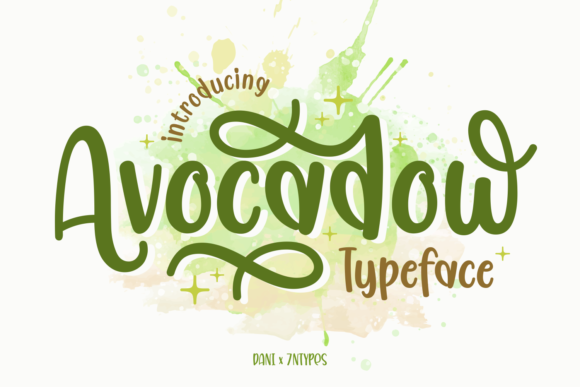
Unlock Your Creativity with Avocadow Font
Remember that moment when a spark of inspiration strikes, and you can’t wait to bring your creative idea to life? You’re browsing through design inspiration boards, scrolling through Pinterest, and finally, you stumble upon the perfect font to match your vision. For designers like you, finding the right font can make all the difference between a good design and an exceptional one.
Introducing Avocadow Font, a display font that embodies the perfect blend of fun, quirkiness, and authenticity. This enchanting font is designed to help you turn your creative ideas into true showstoppers. Whether you’re working on a branding project, a social media campaign, or a blog post, Avocadow Font is the perfect companion to help you bring your ideas to life.
Avocadow Font Key Features
- Font Family: Avocadow Font
- Unique Characteristics: Unique letterforms and flourishes, including a custom ‘a’ and ‘v’ with avocado-inspired designs
- Language Support: Supports over 200 languages, including Latin, Cyrillic, and Greek scripts
Avocadow Font Review
As a designer, I was excited to try out the Avocadow font. Here’s my honest review.
- The Avocadow font has a unique, quirky charm to it. It’s perfect for adding a touch of whimsy to your designs.
- The font is highly customizable, with a range of weights and styles available. This makes it easy to adapt to different design contexts.
- The font is well-suited for digital applications, such as website headers and social media graphics.
- The font may not be the most readable in small sizes. It’s best used for headings and titles rather than body text.
- The font’s quirkiness can be a double-edged sword. While it’s great for adding personality to your designs, it may not be suitable for more formal or professional projects.
- The font’s range of weights and styles can be overwhelming, making it difficult to choose the right one for your design.
Overall, I think the Avocadow font is a great addition to any designer’s toolkit. While it has its limitations, its unique charm and high customizability make it a great choice for designers looking to add some personality to their projects.
Getting the Most Out of Avocadow Font
For the best results, use Avocadow Font in combination with other creative elements, such as bold colors and playful graphics. Experiment with different font sizes and styles to create visual interest.
Avocadow Font is ideal for use in food-related branding, packaging, and advertising. It’s also great for creating eye-catching social media graphics and blog posts about food, health, and wellness.
Alternatives to Avocadow Font for Designers
Great Vibes is a beautiful, handwritten font that’s perfect for adding a touch of elegance to your designs. It’s great for use in branding, invitations, and other creative projects. Compared to Avocadow Font, Great Vibes has a more refined and sophisticated feel, making it ideal for high-end designs.
Pacifico is a elegant, cursive font that’s perfect for adding a touch of sophistication to your designs. It’s great for use in branding, logos, and other creative projects. Compared to Avocadow Font, Pacifico has a more modern and sleek feel, making it ideal for contemporary designs.
Dancing Script is a playful, handwritten font that’s perfect for adding a touch of whimsy to your designs. It’s great for use in branding, invitations, and other creative projects. Compared to Avocadow Font, Dancing Script has a more energetic and lively feel, making it ideal for fun and youthful designs.
Lobster is a fun, handwritten font that’s perfect for adding a touch of playfulness to your designs. It’s great for use in branding, logos, and other creative projects. Compared to Avocadow Font, Lobster has a more casual and laid-back feel, making it ideal for casual and relaxed designs.